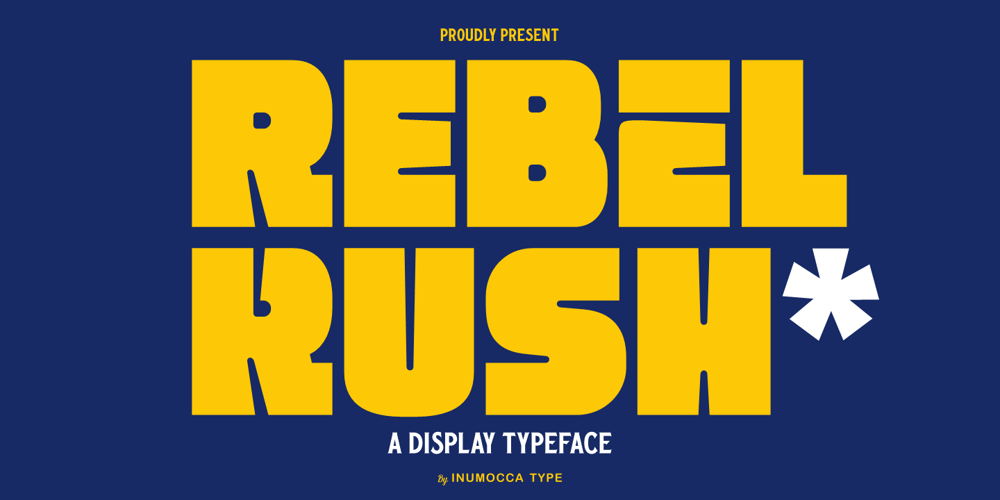
Rebel Rush Font Family was designed by Inu Mocca and published by Inumocca. Rebel Rush contains 1 styles and family package options. Rebel Rush is A Display typeface, Bold and Fresh styleRetro and modern taste, Eyecatching and powerfull.Really playful typeface to covering your Project, like Lettering, Website Interface, Magazine, Branding, Poster, wedding invitations, Quotes Lettering, Logos, and more your project design.- Unique glyphs- Multilingual Characters- UPPERCASE- Lowercase- Numeric- Symbol- Punctuation Character- PUA encoded- Stylistic Alternates (ss01)inumocca type